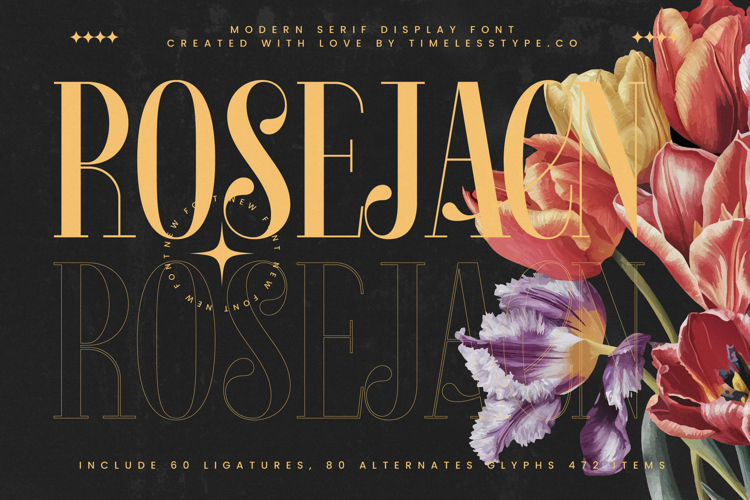
Rosejacn - Modern Serif Display Font
Rosejacn is a modern serif display font that radiates luxury, elegance, and artistic refinement. With its tall proportions, sharp serifs, and decorative swashes, it creates a sophisticated presence that feels timeless yet contemporary. Designed with 60 ligatures and 80 alternates, Rosejacn gives designers a powerful toolkit to craft unique, expressive, and polished typography for high-end projects. Its bold yet graceful structure makes it an ideal choice for designs that demand authority while retaining beauty.
This font excels in headline typography, where its refined letterforms immediately draw attention across posters, banners, and editorial spreads. In branding and logo design, Rosejacn communicates exclusivity and prestige, making it perfect for luxury labels, fashion houses, jewelry, and boutique businesses that want a striking and memorable identity. Its intricate details also enhance packaging design, particularly for perfumes, cosmetics, gourmet products, and artisanal goods, where typography elevates the sense of quality and desirability.